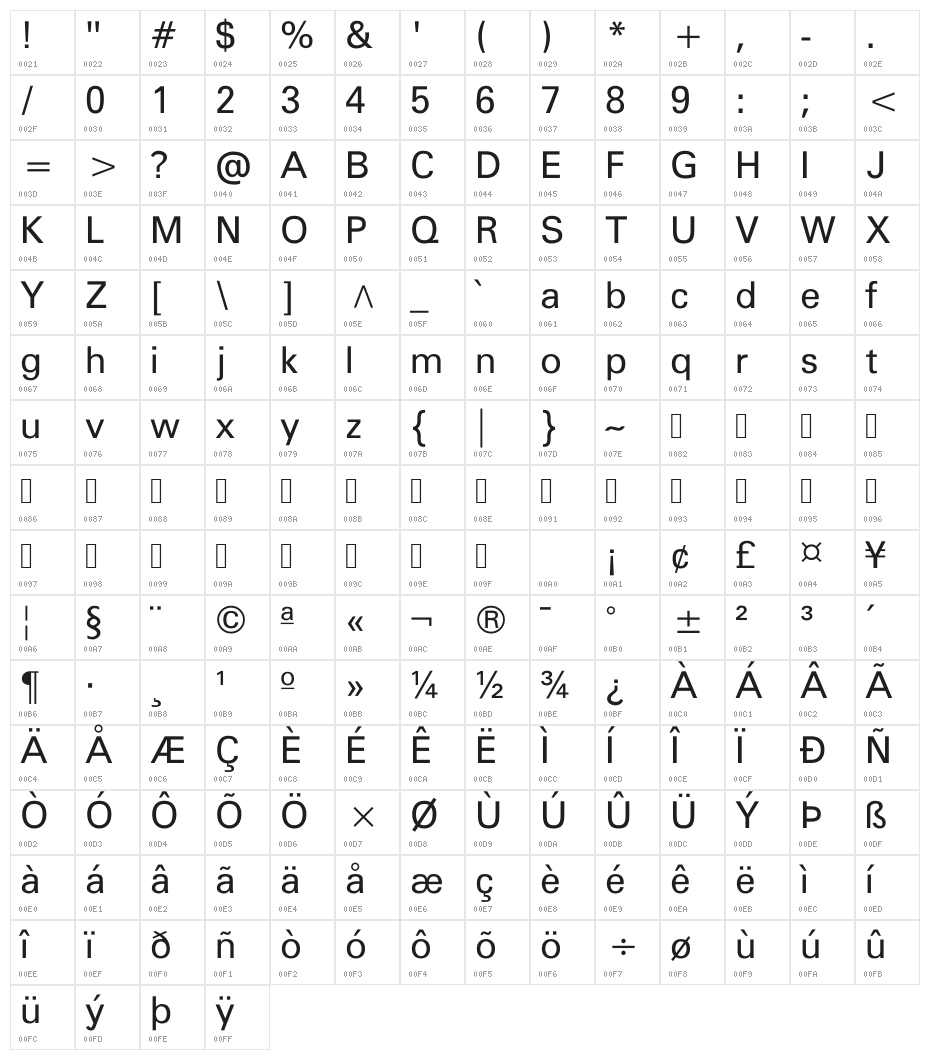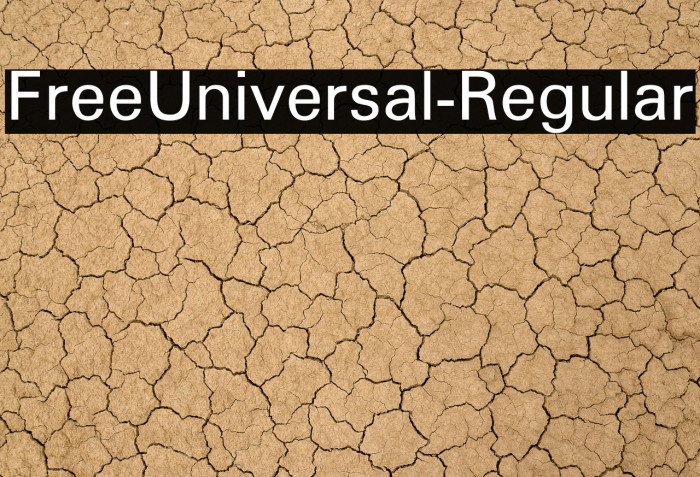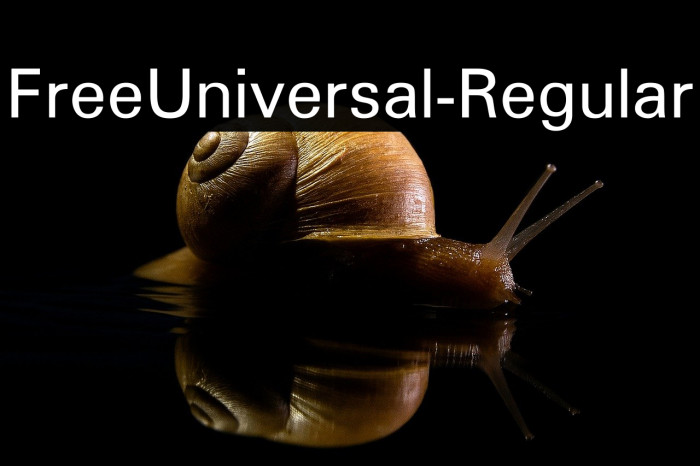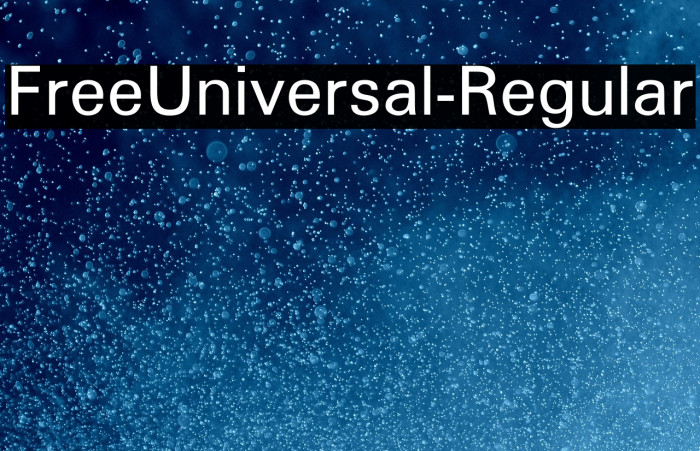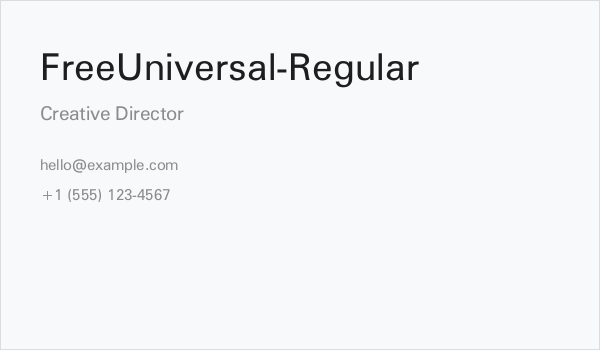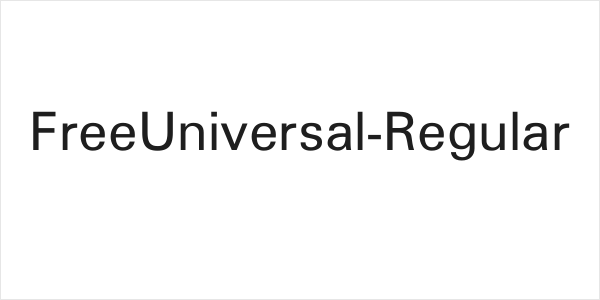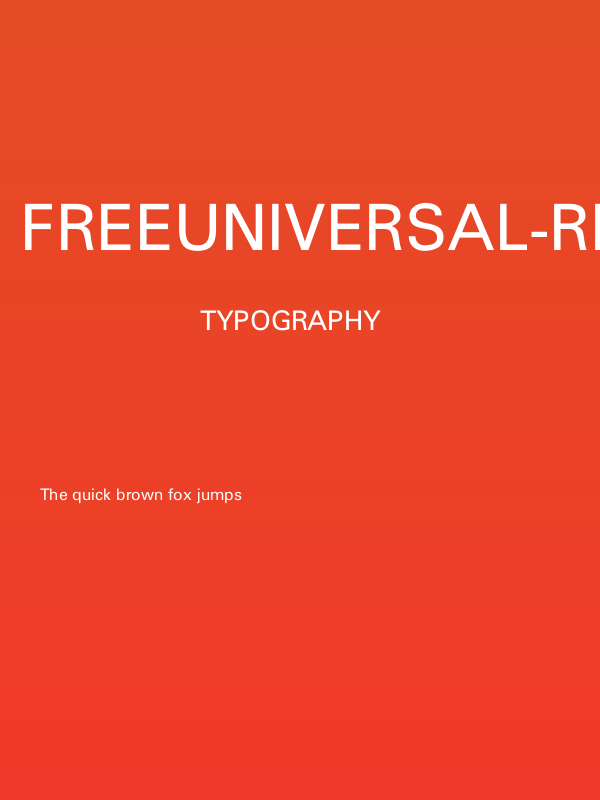
FreeUniversal-Regular Font
FreeUniversal-Regular Description
This typeface features a clean and modern sans-serif design, characterized by its simplicity and readability. The uniform stroke width and lack of serifs give it a contemporary appearance, making it versatile for various applications. The uppercase and lowercase letters are well-proportioned, with a consistent x-height that enhances legibility. The numerals are clear and distinct, suitable for both digital and print media. Special characters are designed with precision, maintaining the overall aesthetic of the typeface.